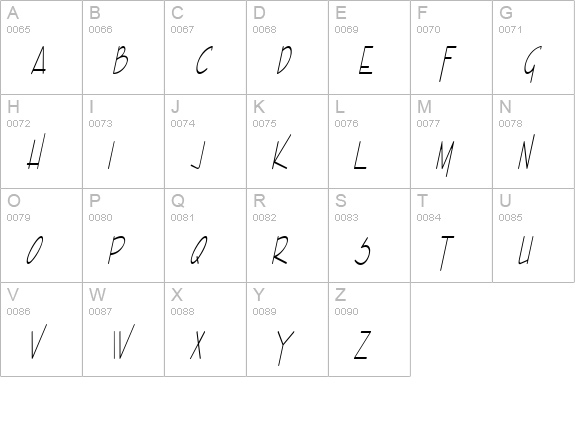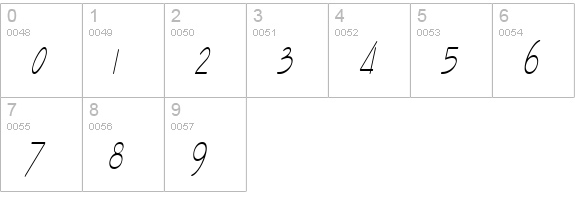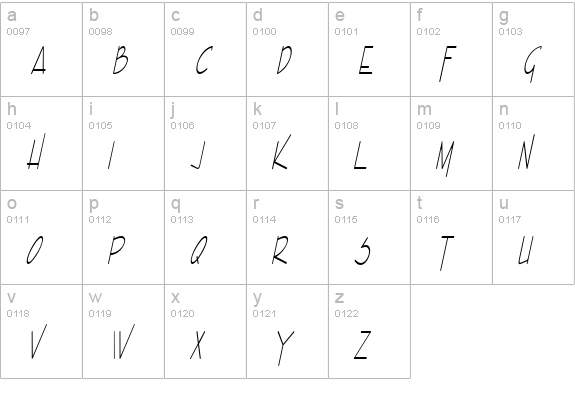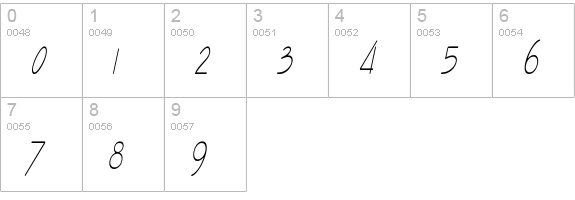
Enview Light Italic is a refined, elegant, italic variant in the Enview typeface family \xE2\x80\x94 well suited to elegant body text, refined sub-headings, and luxury branding.
Enview Light Italic is a beautifully crafted font that exudes elegance and sophistication. Its delicate and graceful curves give a sense of modernity and style, making it perfect for projects that require a touch of refinement. The light italic style adds a subtle emphasis to text, making it ideal for titles, headings, and other design elements. What makes Enview Light Italic even more appealing is that it is available for free download at FontsMarket.com. This means that you can easily access this stunning font without any cost, allowing you to elevate your designs without breaking the bank. Whether you're working on a branding project, creating invitations, or designing a website, Enview Light Italic is sure to add a touch of class and sophistication to your work. Download it today and see the difference it can make in your designs.